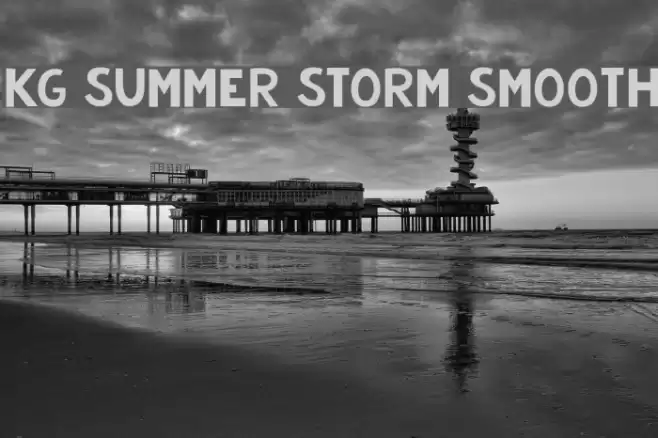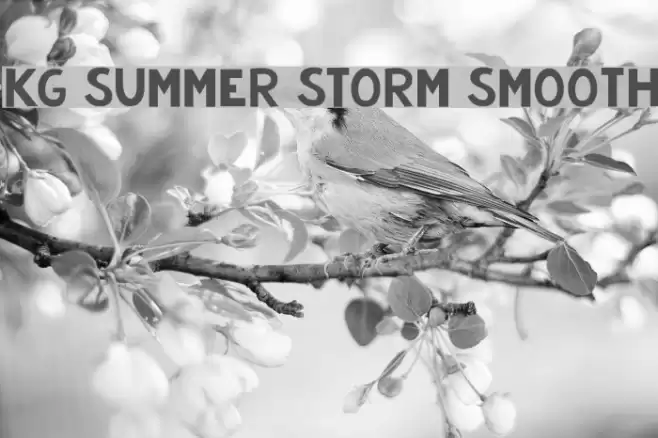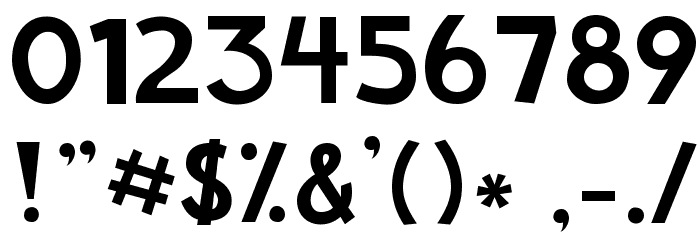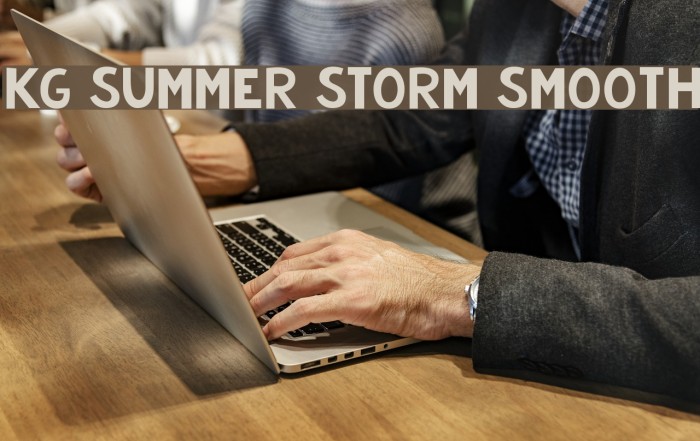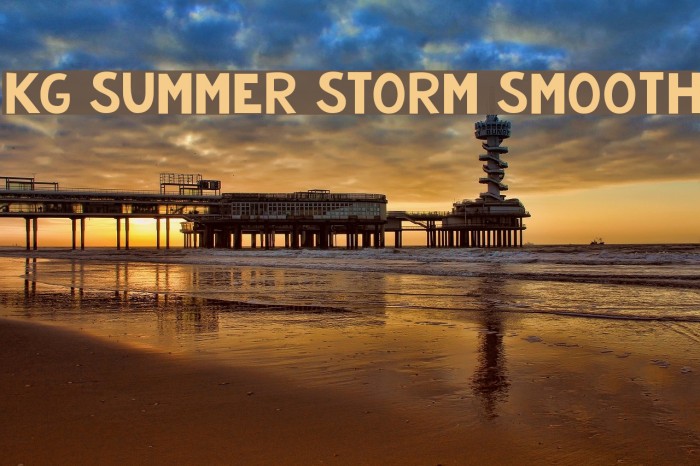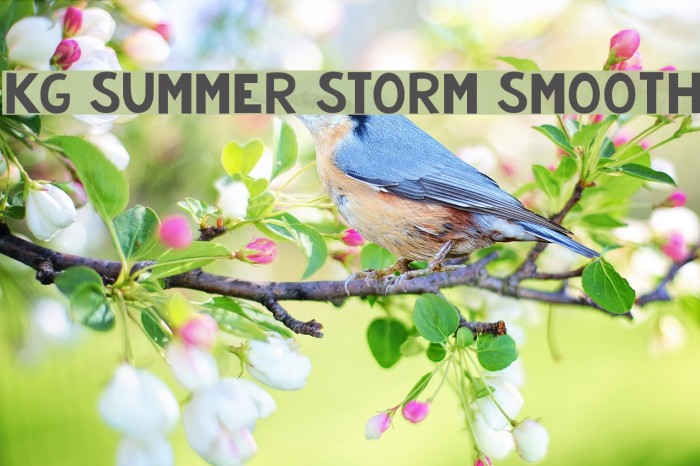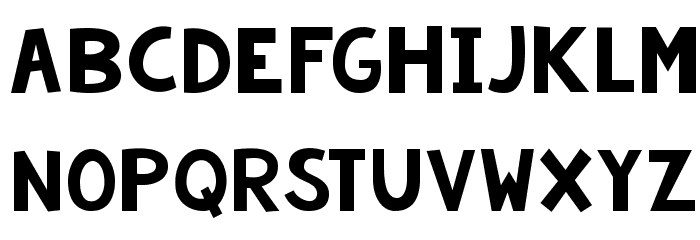
KG Summer Storm Smooth Font
KG Summer Storm Smooth Description
This font features bold, smooth characters with a playful and slightly whimsical style. The letters are well-rounded with consistent stroke thickness, giving it a friendly and approachable appearance. The uppercase and lowercase letters maintain a uniform width, contributing to a cohesive look. The numerals are clear and easy to read, matching the overall style of the alphabet. Special characters are included, maintaining the same bold and smooth characteristics. This font is versatile, suitable for various creative projects that require a touch of personality.
A bold, smooth font with a playful and whimsical style from Comic fonts.
- Proposed Projects: Ideal for children's books, playful branding, posters, and greeting cards.
- Overall Style: Playful, Whimsical